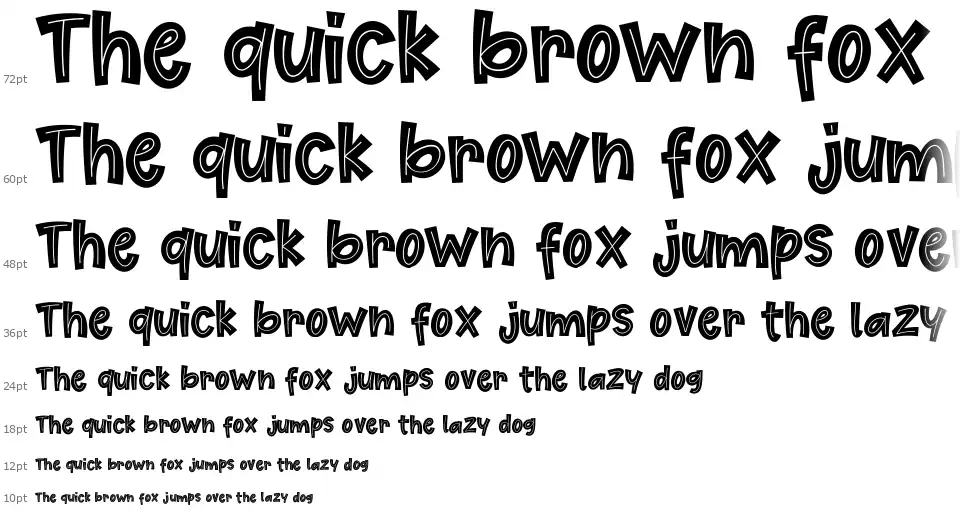
Maple Bold Font Free Download - Web explore maple designed by eric olson at adobe fonts. Web beautiful maples font by dreamink (7ntypes).otf. Download 186,286 free fonts at ufonts.com. Web maple bold font free download. Web cute maple by khurasan.
Maple Bold Font Free Download - Web download maple font · free for personal use · hello, this font is only for personal use! Web maple bold font free download. Web cute maple by khurasan. Download 186,286 free fonts at ufonts.com. This font is free for personal use only.
Maple Bold Font Free Download - We do appreciate your donation to support us creating more. Download 186,286 free fonts at ufonts.com. Web maple bold font free download. A great choice for highlighting your design elements. Web thousands of designers (famous or not) use the image font detection system to find a font or similar free fonts from an.
Maple Bold Font Free Download - A great choice for highlighting your design elements. Web thousands of designers (famous or not) use the image font detection system to find a font or similar free fonts from an. Web maple bold font free download. Web beautiful maples font by dreamink (7ntypes).otf. Download 186,286 free fonts at ufonts.com.
Maple Bold Font Free Download - Web download maple boldopentype font. A great choice for highlighting your design elements. Web maple bold font free download. Web download maple font · free for personal use · hello, this font is only for personal use! Web beautiful maples font by dreamink (7ntypes).otf.